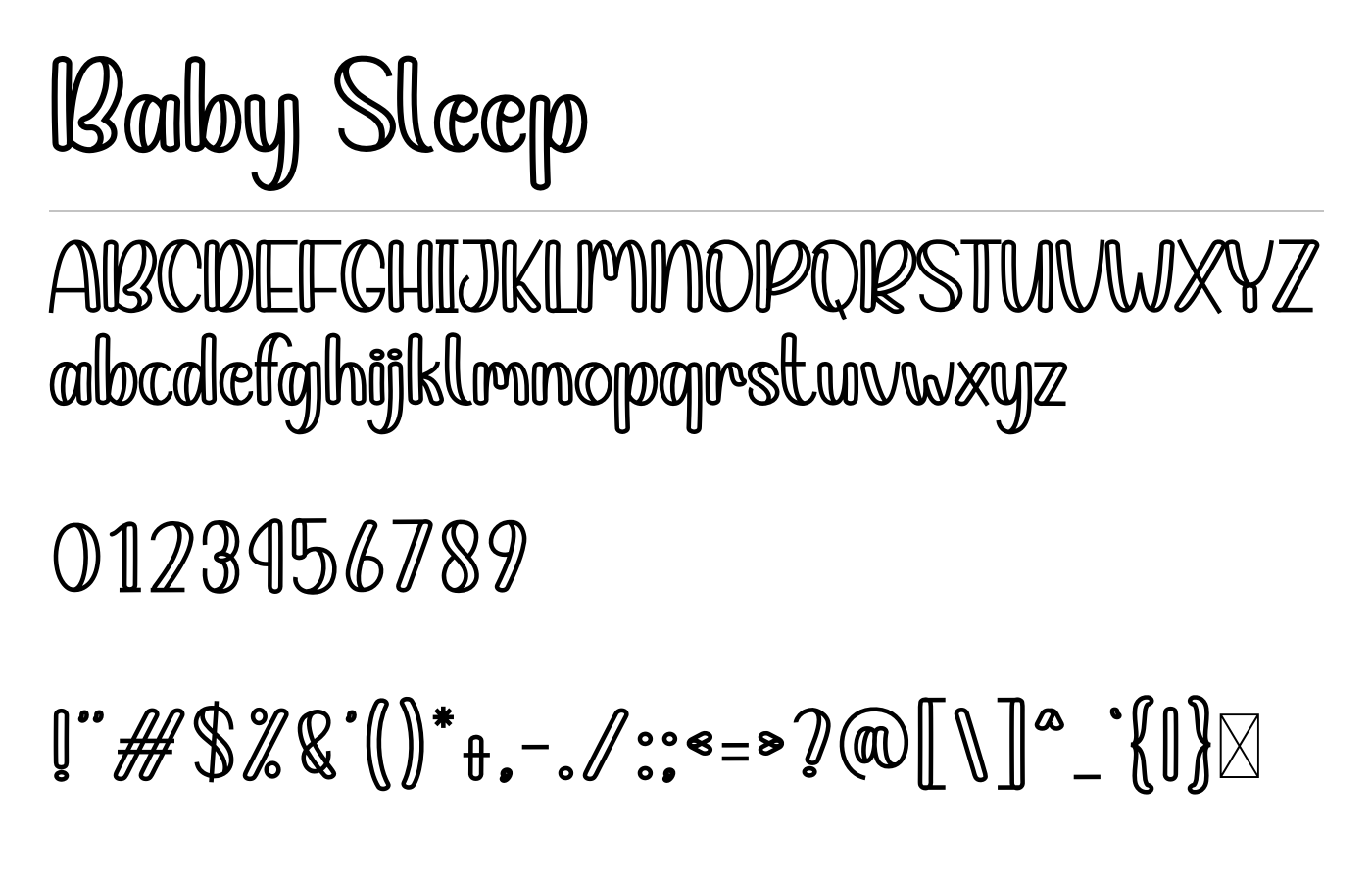
Baby Sleep Font is a playful and charming sans serif typeface with rounded, soft edges and a whimsical, hand-drawn feel. Its medium weight and moderate contrast combined with unique, slightly condensed letterforms and double-story characters make it ideal for creating a friendly, approachable vibe in children’s products, casual branding, and informal designs. This font works best for logos, packaging, and headlines where a warm and fun personality is desired.
Baby Sleep Font